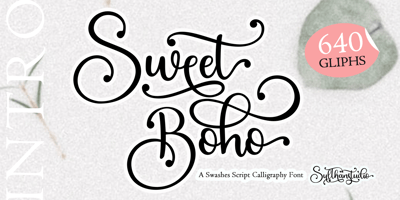
Sweet Boho Font Family was designed by Nasrullah and published by Sulthan Studio. Sweet Boho contains 1 styles and family package options. Sweet boho is this amazing typeface handmade script font we created in freestyle for those of you who do work and crafts. It’s perfect for any type of work you’re working various purposes such as logos, wedding invitations, headings, t-shirts, letterheads, signage, labels, news, posters, badges etc.